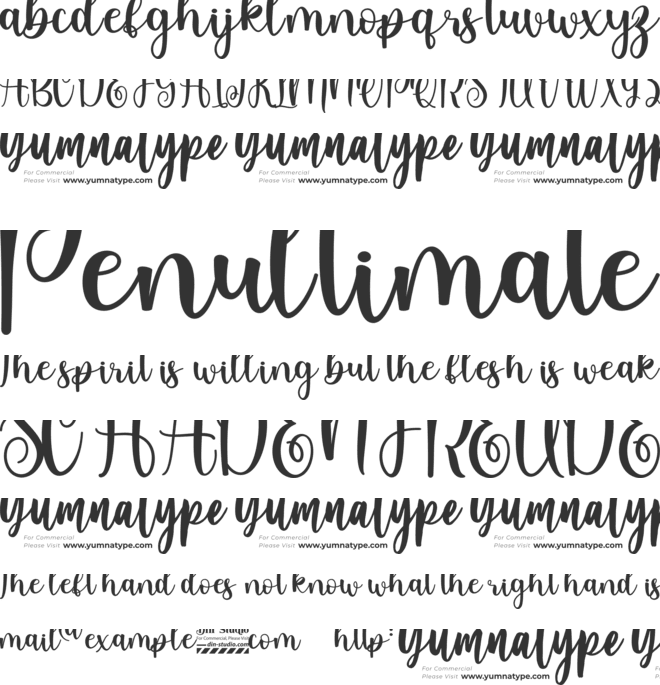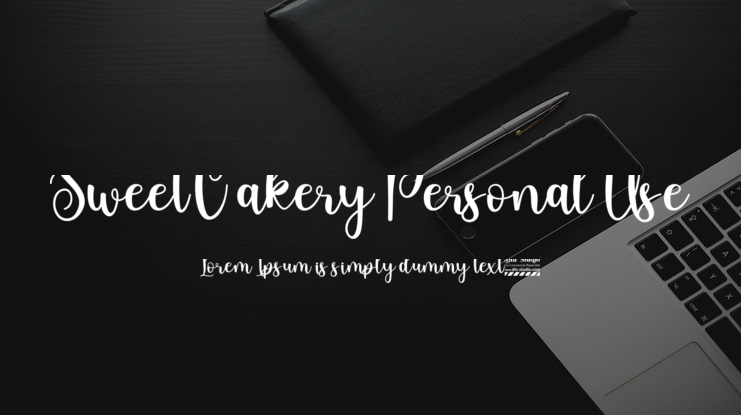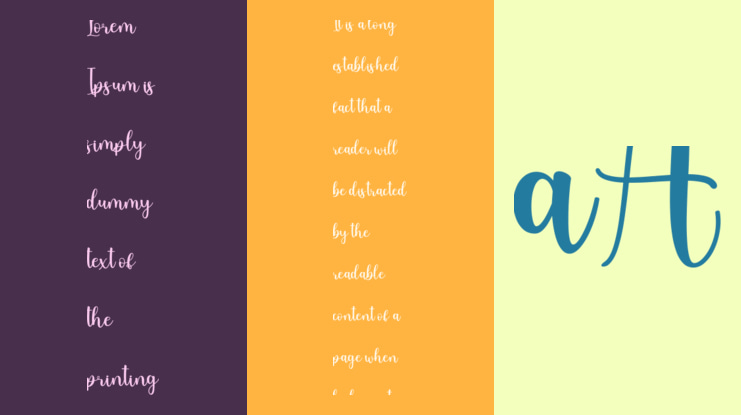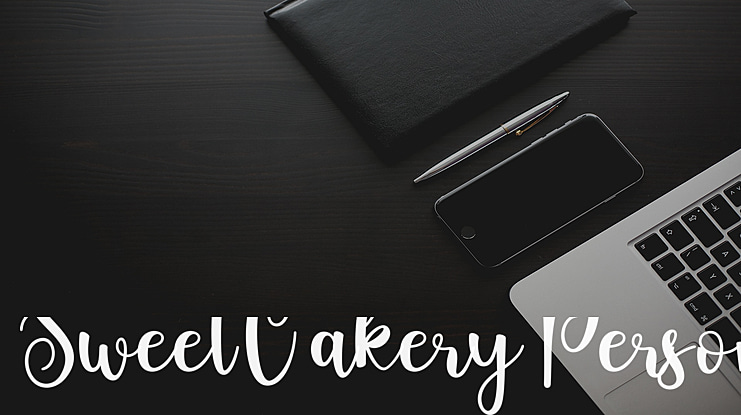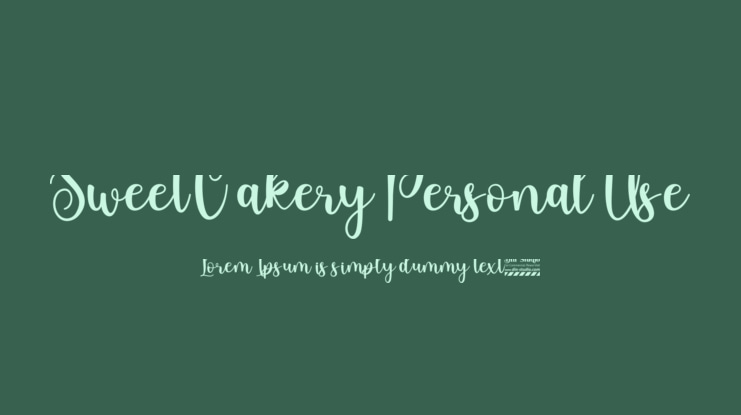
Sweet Cakery is a beautiful script font with a natural and unique design will make your project more beautiful and powerful. The font is suitable for your branding project and any design.